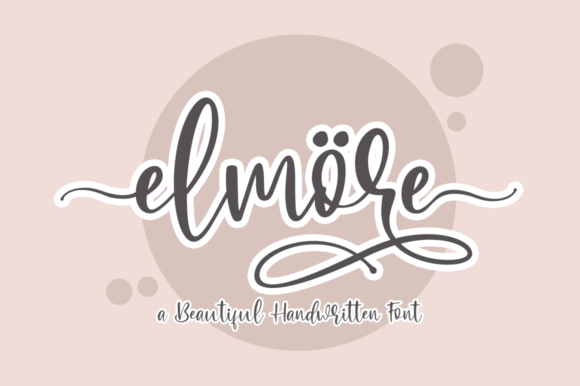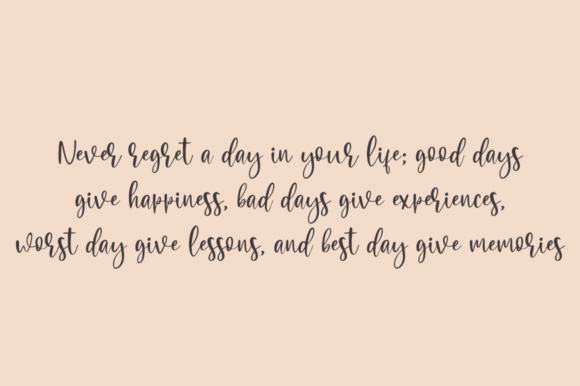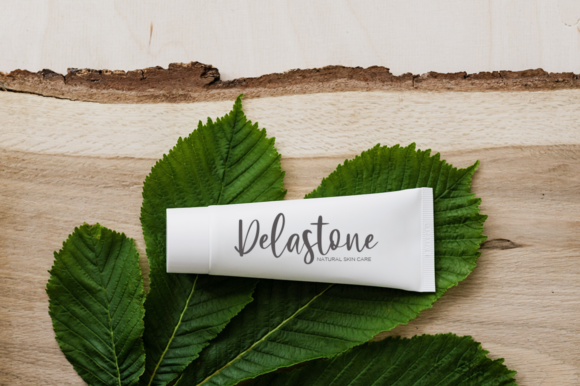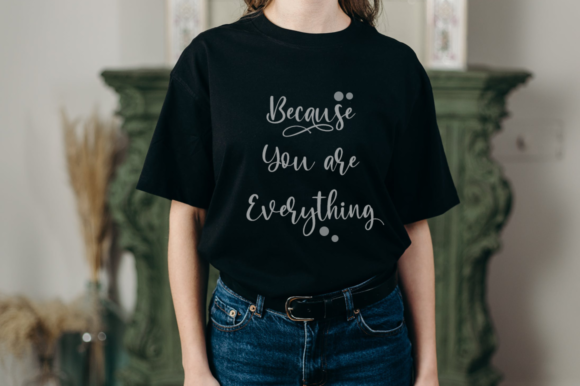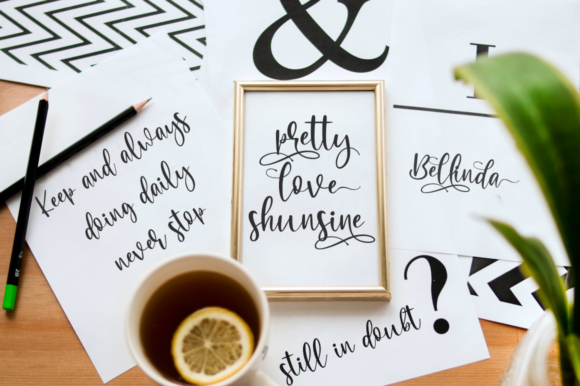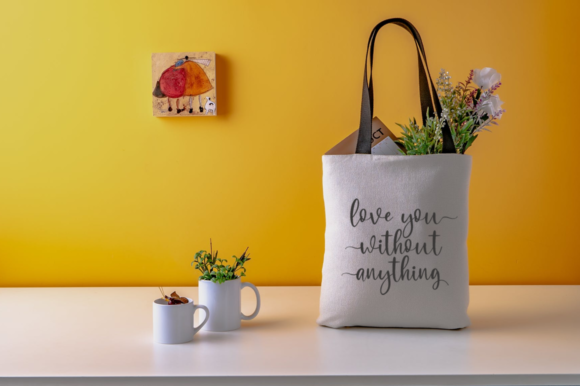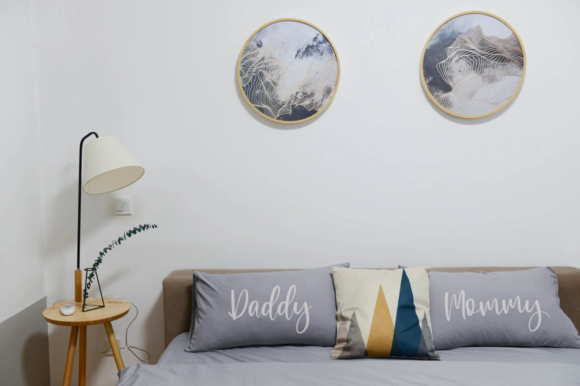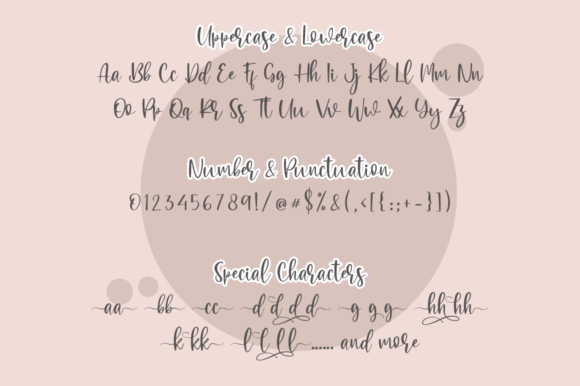
Elmore Font
About Elmore Font
Elmore is a font that exudes elegance and flowing beauty, making it a perfect choice for a variety of design projects. Its elegant and flowing style enhances your creations, adding a touch of handwritten allure that captivates the eye.
With its graceful nature, Elmore brings a sense of sophistication and charm to your designs. Whether you’re working on wedding invitations, thank you cards, quotes, greeting cards, logos, business cards, or any other project, this font elevates each creation with its effortless beauty.
Elmore’s handwritten essence adds a personal and authentic touch to your designs, making them feel refined and special. It’s like a graceful dance of pen strokes that infuses your creative ideas with a sense of elegance.
Incorporating Elmore into your designs allows you to explore a wide range of creative possibilities. Its varying baseline, smooth lines, gorgeous glyphs, and stunning alternates create a mesmerizing visual experience, adding an artistic flair that enhances the overall appeal of your designs.
Moreover, Elmore looks stunning on various materials and contexts, making it a versatile choice for different design needs. From heartfelt wedding invitations to professional business logos, this font complements your projects beautifully.
Fall in love with Elmore’s elegance and flowing beauty as it transforms your ideas into stunning designs that resonate with sophistication and charm.
In summary, Elmore is more than just a font; it’s an incredibly elegant companion that enhances your designs with its flowing beauty. Embrace its grace and notice how it transforms your creative ideas into remarkable works of art. With Elmore, your projects become true expressions of beauty and allure, leaving a lasting impact on all who encounter them. Let Elmore be the font that adds a touch of magic to your designs, creating a world of endless possibilities and capturing the hearts of your audience.